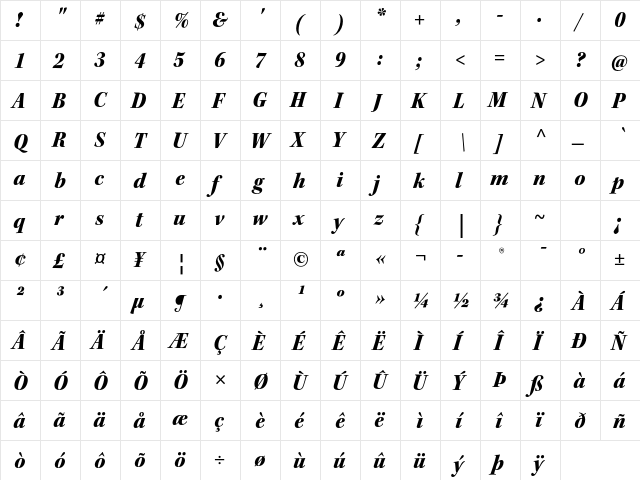
Kepler Std Black Semicondensed Italic Subhead Font Preview
| Designer | Robert Slimbach |
Design Context for Kepler Std Typeface
Kepler Std is a composed and adaptable typeface that performs quietly and consistently across a wide range of design contexts. The dynamic lean of this cut emphasises speed and emphasis in any layout. The condensed width makes it efficient for tight spaces without sacrificing legibility.
Pro Tip: Try Kepler Std for annotation and caption copy alongside an upright companion — the contrast in angle creates a dynamic but ordered typographic system.